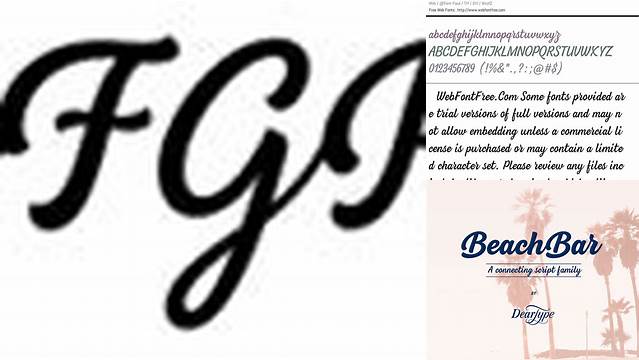
Are you looking to add a touch of whimsy and handcrafted charm to your designs? The Beachbar Script Regular font might just be what you need. This font exudes a relaxed, coastal vibe, perfect for projects that require a friendly and approachable feel. Whether you're designing invitations, logos, or social media graphics, understanding how to find and use this font effectively is key. In this comprehensive guide, we'll explore everything you need to know about Beachbar Script Regular font free download, including its features, uses, and where to find it safely.
What is Beachbar Script Regular Font?
Beachbar Script Regular font is a typeface characterized by its flowing, handwritten style. It mimics the look of natural handwriting, making it ideal for designs that aim to feel personal and authentic. The 'Regular' designation indicates the font's weight or thickness; it's neither bold nor light but sits comfortably in the middle, making it versatile for various applications. The overall aesthetic evokes a sense of relaxation, summer, and carefree vibes, reminiscent of a beachside setting.
Key Features of Beachbar Script Regular Font
- Handwritten Style: The font's primary appeal lies in its authentic, handwritten appearance. This makes it perfect for adding a personal touch to projects.
- Versatility: While it's particularly suited for beach-themed or casual designs, the font's readability ensures it can be used in a variety of contexts.
- Friendly Aesthetic: Its rounded edges and playful curves create a welcoming and approachable feel, making it ideal for designs that need to be friendly and inviting.
- Legibility: Despite being a script font, Beachbar Script Regular font maintains a good level of legibility, especially in larger sizes. This is crucial for ensuring your message is easily understood.
- Unique Characters: The font often includes unique glyphs and swashes that can add extra flair to your designs. These special characters can be used to emphasize words or create interesting visual elements.
Common Uses for Beachbar Script Regular Font
- Invitations: Perfect for wedding invitations, party invites, and other special events where a personal touch is desired.
- Logos and Branding: Ideal for businesses that want to convey a relaxed, approachable, and creative image. Think beachside cafes, handmade goods, or artistic ventures.
- Social Media Graphics: Great for creating engaging and eye-catching posts, stories, and ads that stand out from the crowd.
- T-shirt Designs: Its casual style makes it a popular choice for t-shirt designs, especially those with a beach or summer theme.
- Posters and Flyers: Useful for promoting events or businesses with a laid-back, friendly vibe.
- Website Headers and Banners: Can add personality and charm to website designs, particularly for blogs or businesses in creative industries.